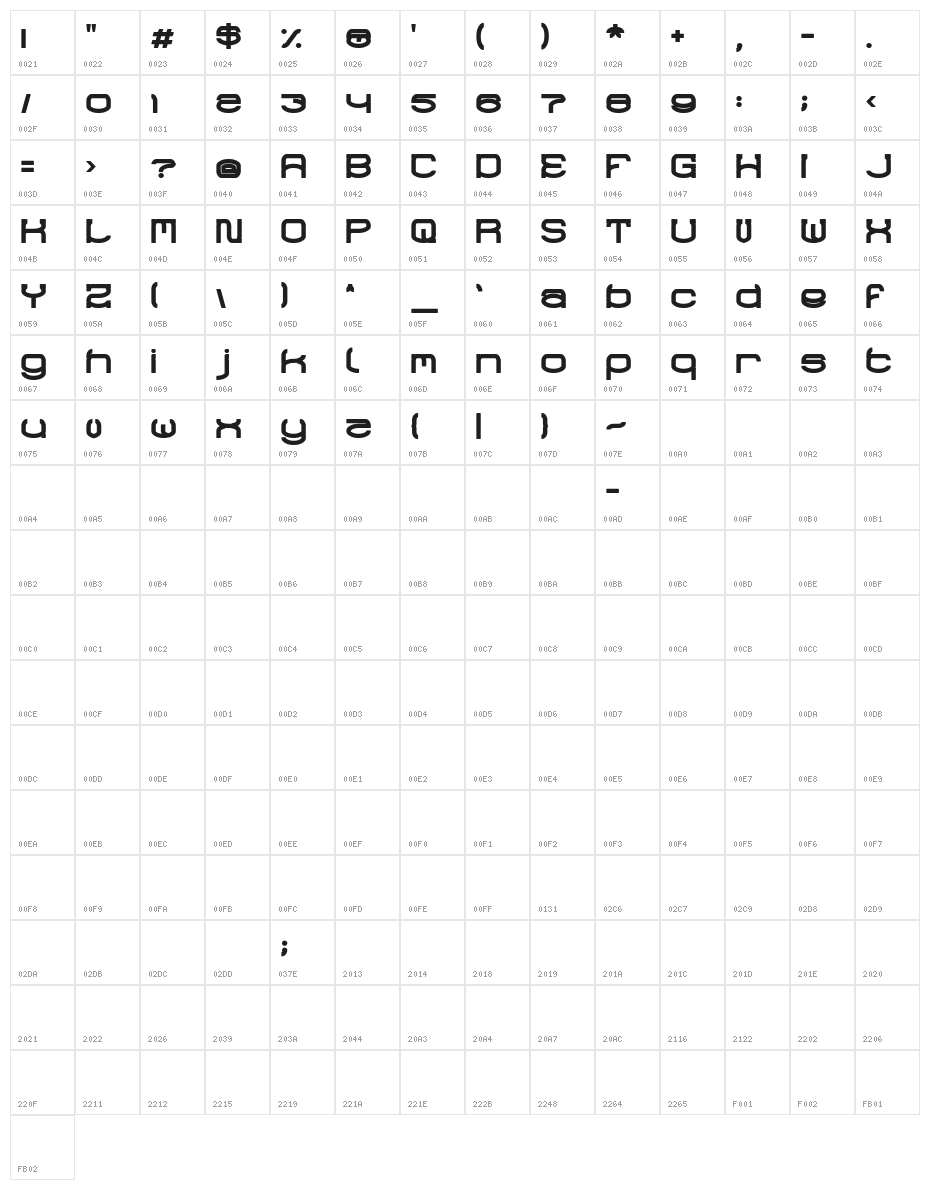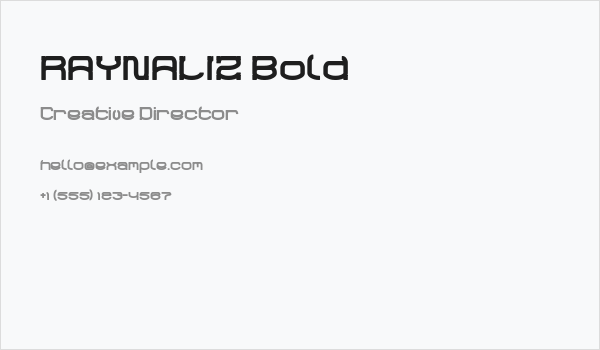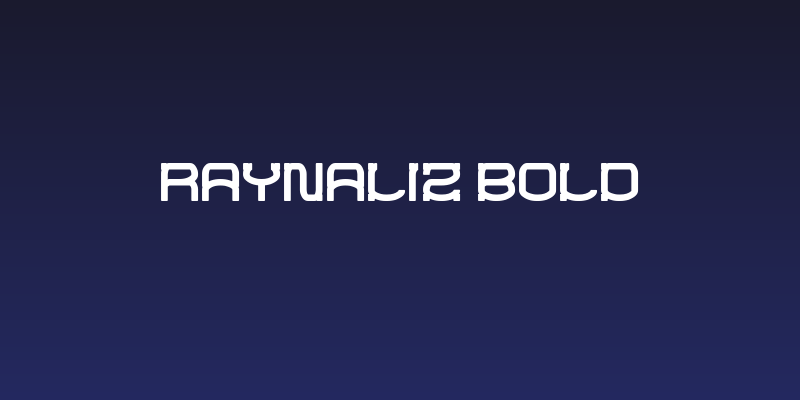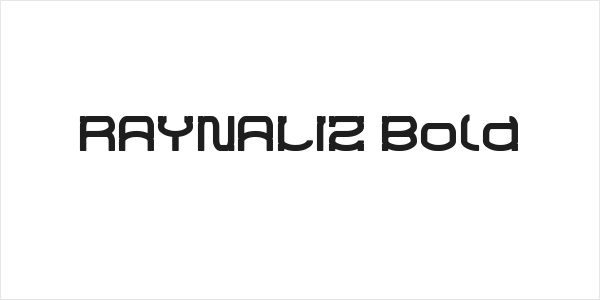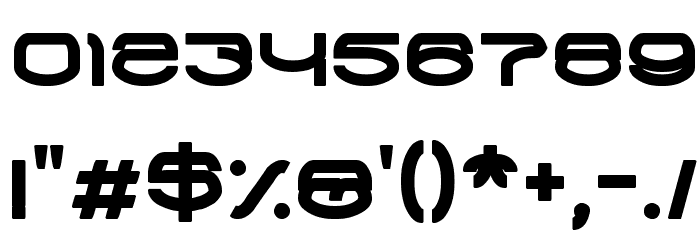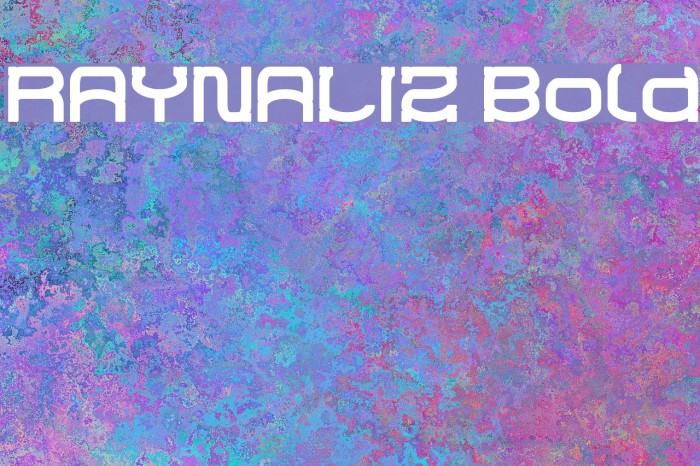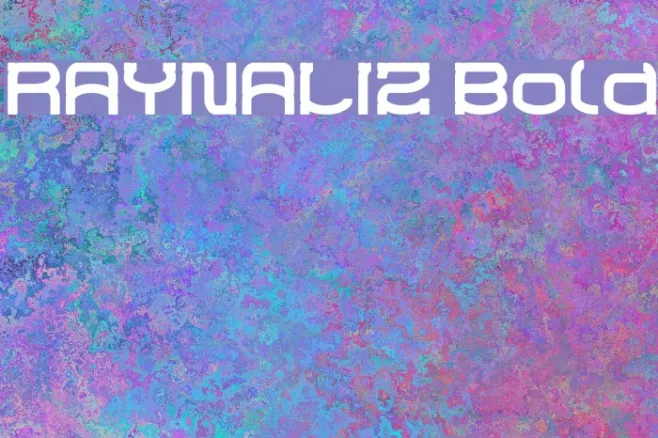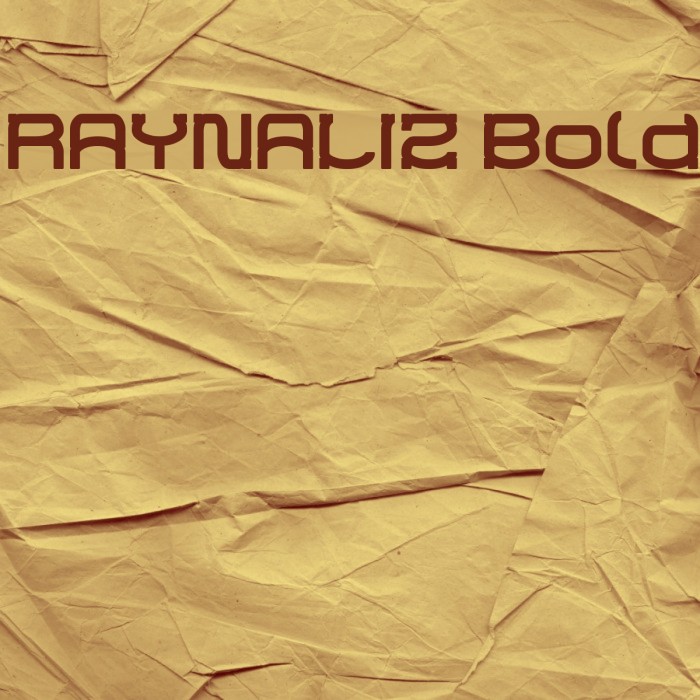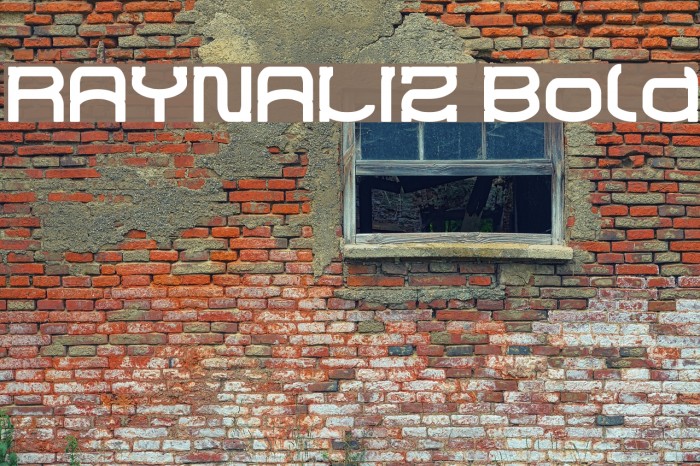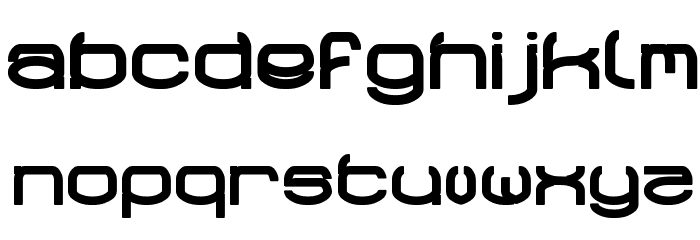
RAYNALIZ Bold Font
RAYNALIZ Bold Description
This font features a bold and modern design with a unique geometric structure. The characters are crafted with a futuristic aesthetic, incorporating rounded edges and consistent stroke widths that create a cohesive and visually appealing look. The uppercase letters maintain a uniform height, while the lowercase letters offer a slightly more playful and dynamic appearance. Numbers and special characters are designed to complement the overall style, ensuring versatility across various applications. The font's distinctiveness lies in its ability to convey a sense of innovation and forward-thinking, making it ideal for projects that require a contemporary and cutting-edge feel.
RAYNALIZ-BOLD UPPERCASE
RAYNALIZ-BOLD LOWERCASE
RAYNALIZ-BOLD OTHER CHARS
| Proposed Projects | Ideal for tech branding, modern advertising, futuristic posters, and digital interfaces. |